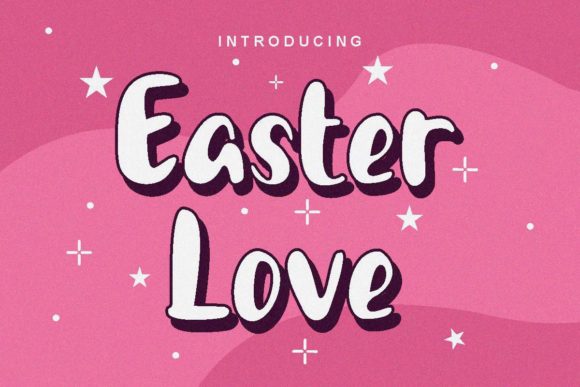
Easter Love Font
**Embrace the Spirit of Easter with the Enchanting Easter Love Font**
Welcome to a world of captivating typography, where the Easter Love Font reigns supreme as the ultimate choice for crafting unforgettable headlines. This enchanting script font, meticulously designed by the esteemed Pidco.art, is a masterpiece tailored to ignite your creativity and elevate your content to new heights.
With its playful and expressive characters, Easter Love embodies the joyous essence of the Easter season, lending an air of celebration and festivity to your every word. It's a font that dances across the page, evoking a symphony of emotions from joy and excitement to warmth and nostalgia.
Indulge in the versatility of Easter Love, as it effortlessly adapts to a myriad of design aesthetics. Whether you seek to create eye-catching social media posts, captivating website banners, or memorable invitations, this font will prove an invaluable asset. Its charming imperfections and whimsical flourishes add an irresistible touch of personality to any project, ensuring that your words leave a lasting impression.
So why settle for ordinary when you can embrace the extraordinary? Let Easter Love Font be the beacon of creativity that illuminates your designs. Its unique style will transform your headlines into works of art, capturing the attention of your audience and leaving them spellbound.
Unlock the power of Easter Love Font today, and let your imagination soar. Experience the joy of creating content that resonates, inspires, and captivates. Join the countless designers, marketers, and creative professionals who have fallen in love with this extraordinary font and witnessed its transformative impact on their work.